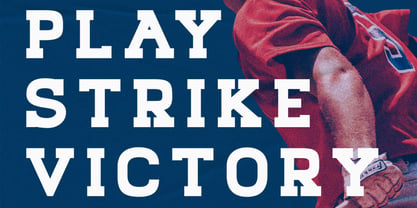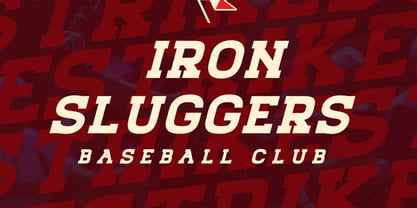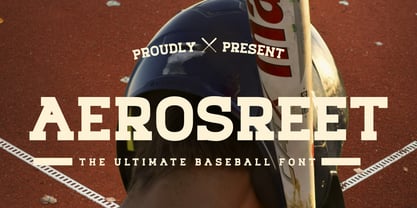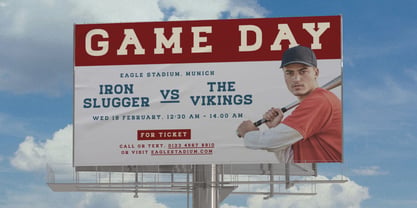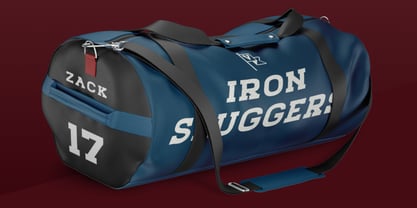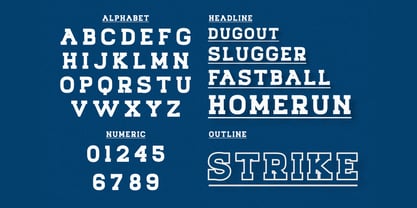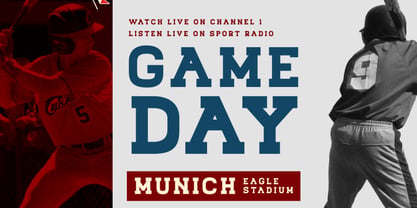
Aerostreet
Aerostreet is a bold display typeface crafted for athletic branding and sports-themed visuals. With a strong slab-serif foundation, it features condensed letterforms, heavy weight, and tight spacing—designed to maximize impact on headlines, and promotional materials. Its solid, geometric structure provides excellent visibility at distance and scale, making it ideal for stadium graphics, sports gear, and editorial covers. Aerostreet includes uppercase characters, numerals, and sport-centric alternates tailored for dynamic layouts in both digital and print formats. Suitable For Sports branding, posters, merchandise design, ticket stubs, event banners, editorial covers, stadium signage, sports websites, promotional ads, fan gear, scoreboard graphics, baseball clubs, game-day materials, digital posters, sports magazines, logo design, YouTube thumbnails, collectibles packaging.